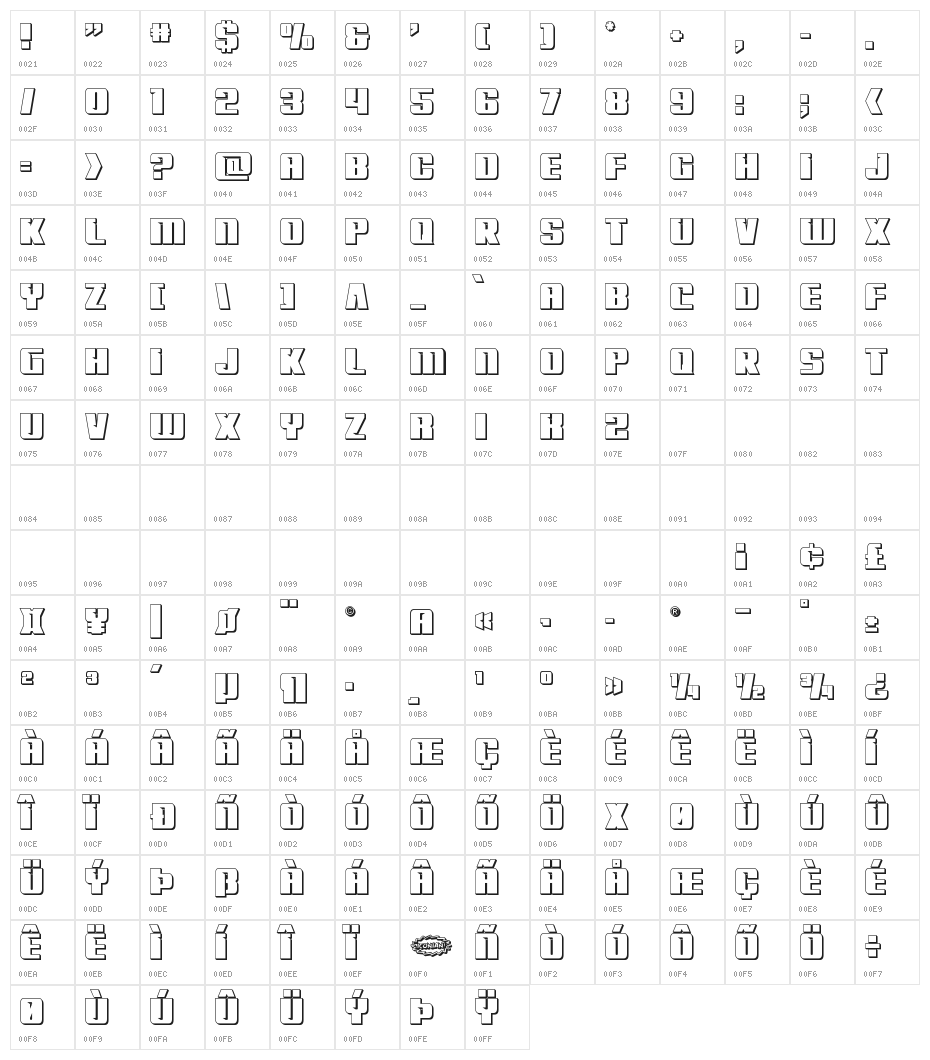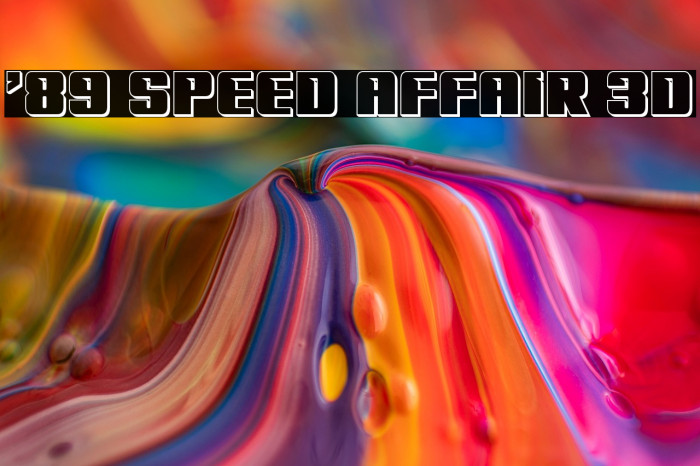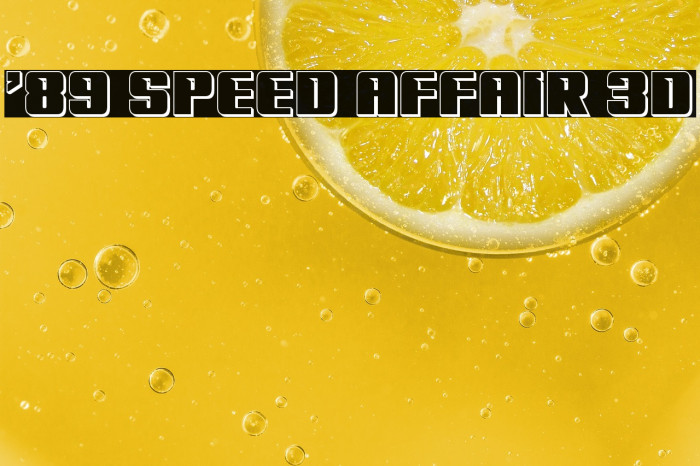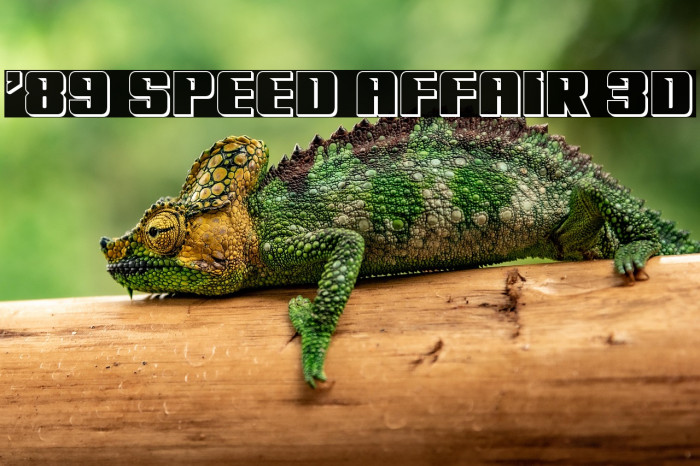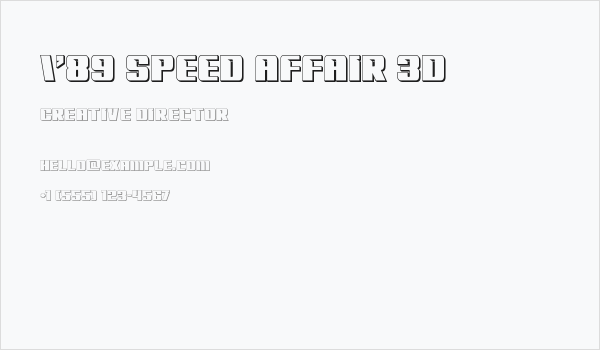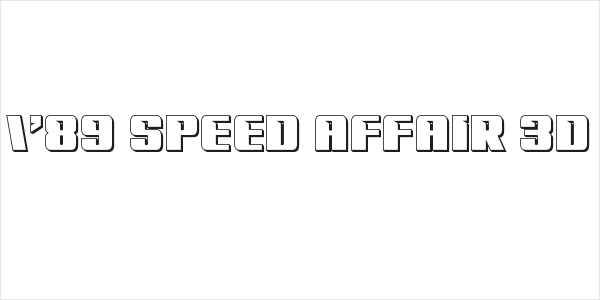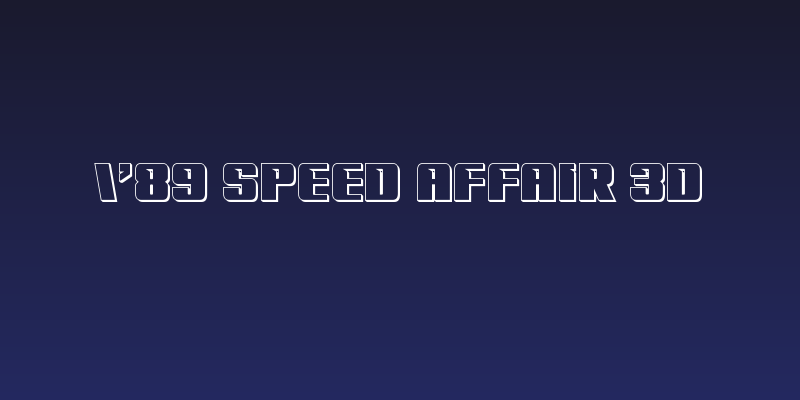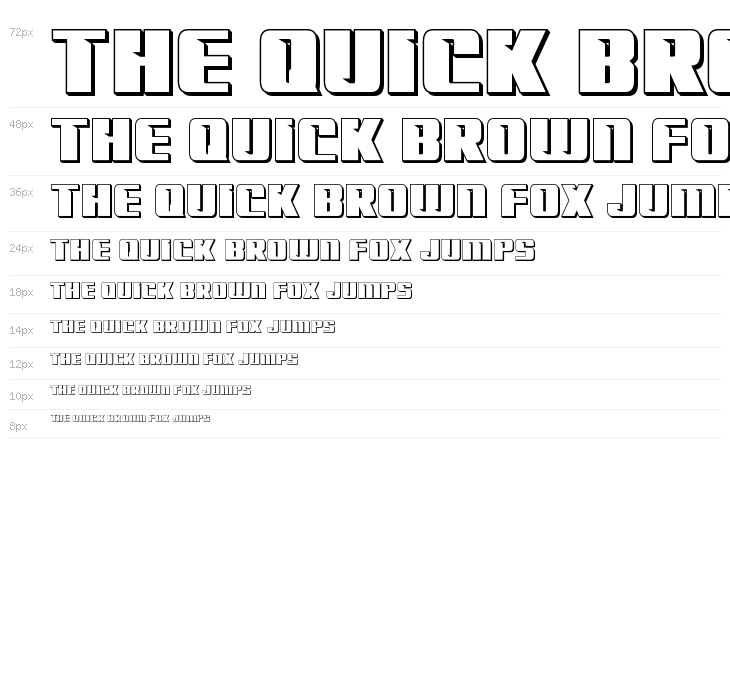
'89 Speed Affair 3D Font
| مشاريع مقترحة | Ideal for use in posters, logos, video game titles, and any project requiring a strong, futuristic look. |